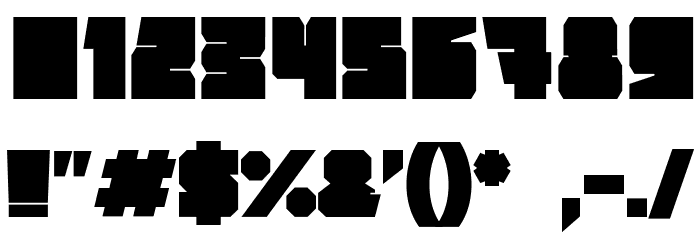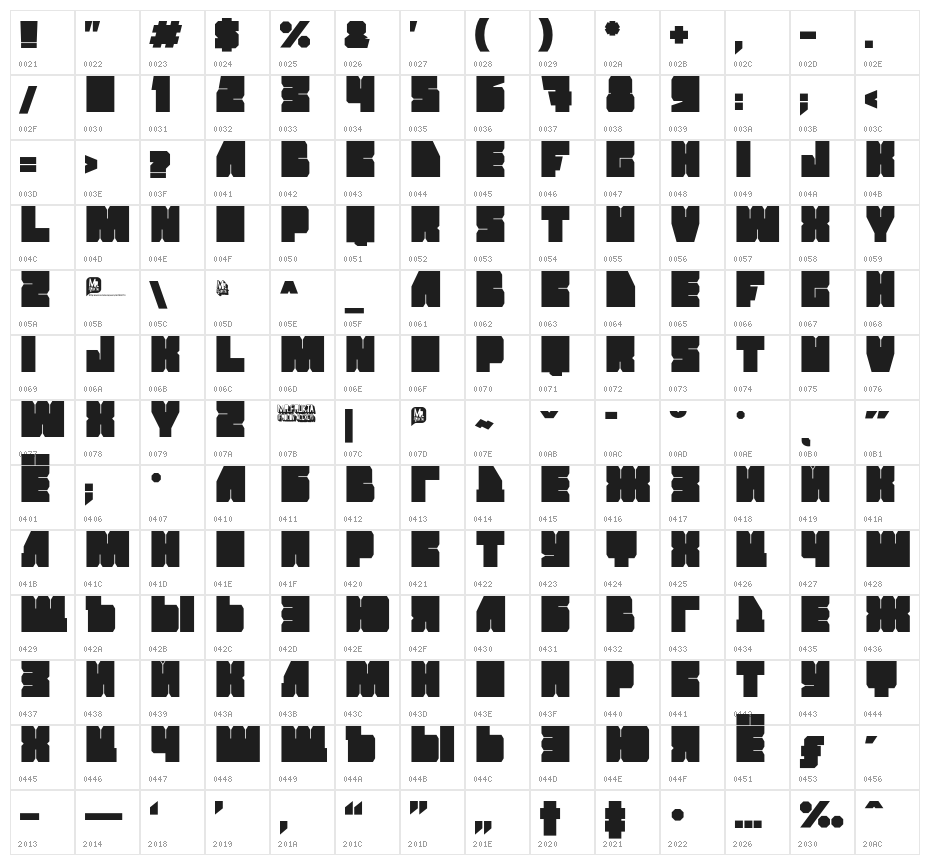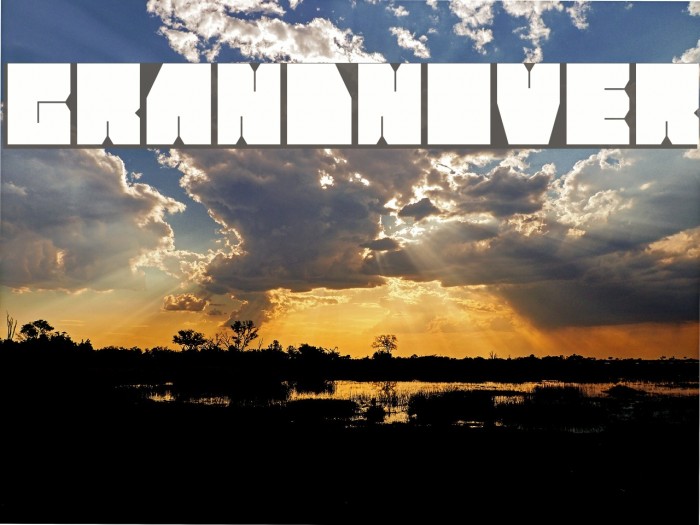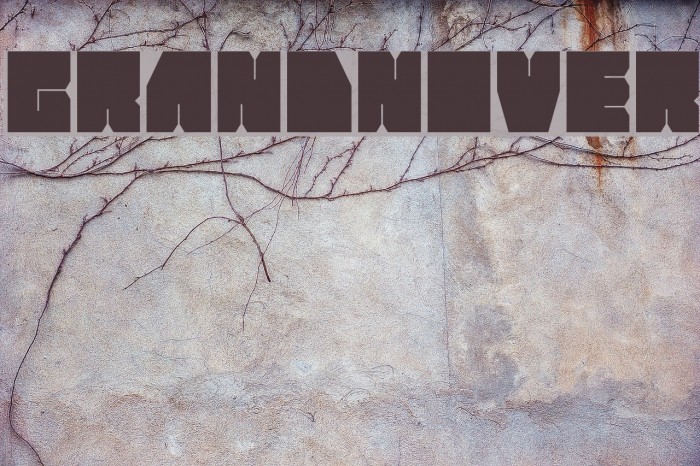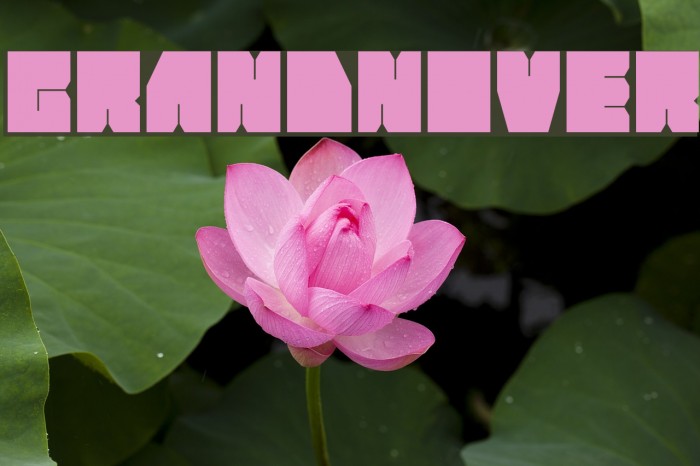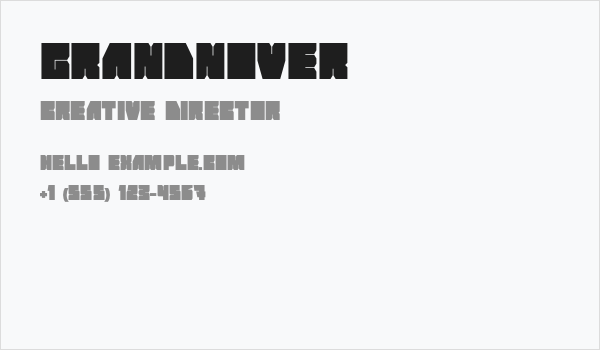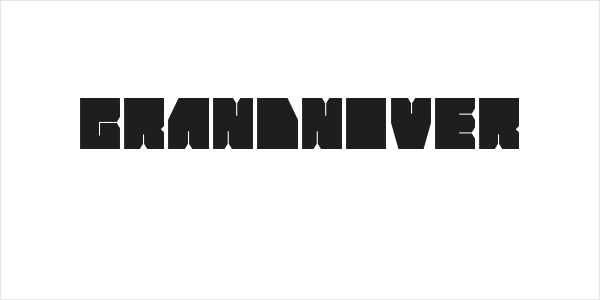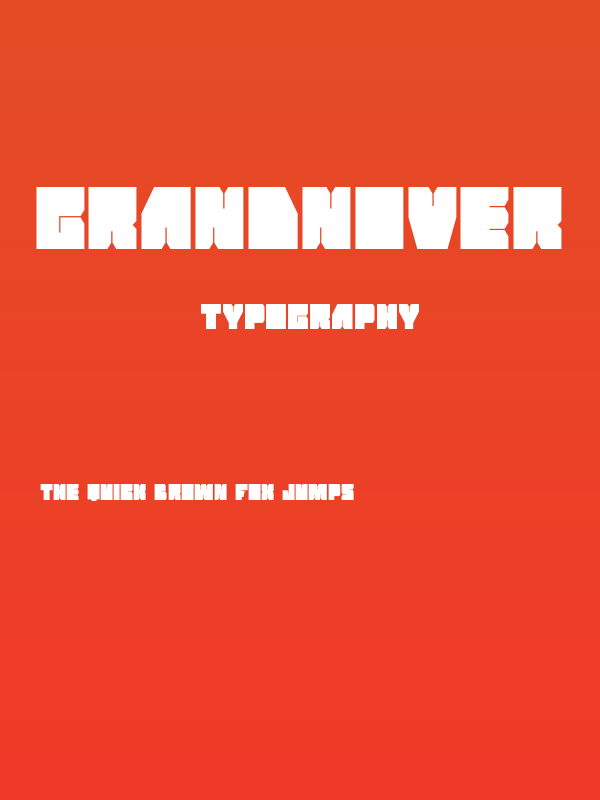
GrandNover Font
GrandNover Description
This font features a bold, geometric design with a strong presence. Each character is constructed with sharp angles and thick lines, creating a sense of solidity and impact. The uppercase and lowercase letters maintain a consistent blocky style, while the numbers and special characters follow suit with the same robust structure. The font's design is reminiscent of industrial or futuristic themes, making it ideal for projects that require a bold statement. Its unique style ensures that it stands out in any application, whether in print or digital media.
| Proposed Projects | Ideal for posters, logos, video game graphics, and branding materials that require a bold and modern look. |